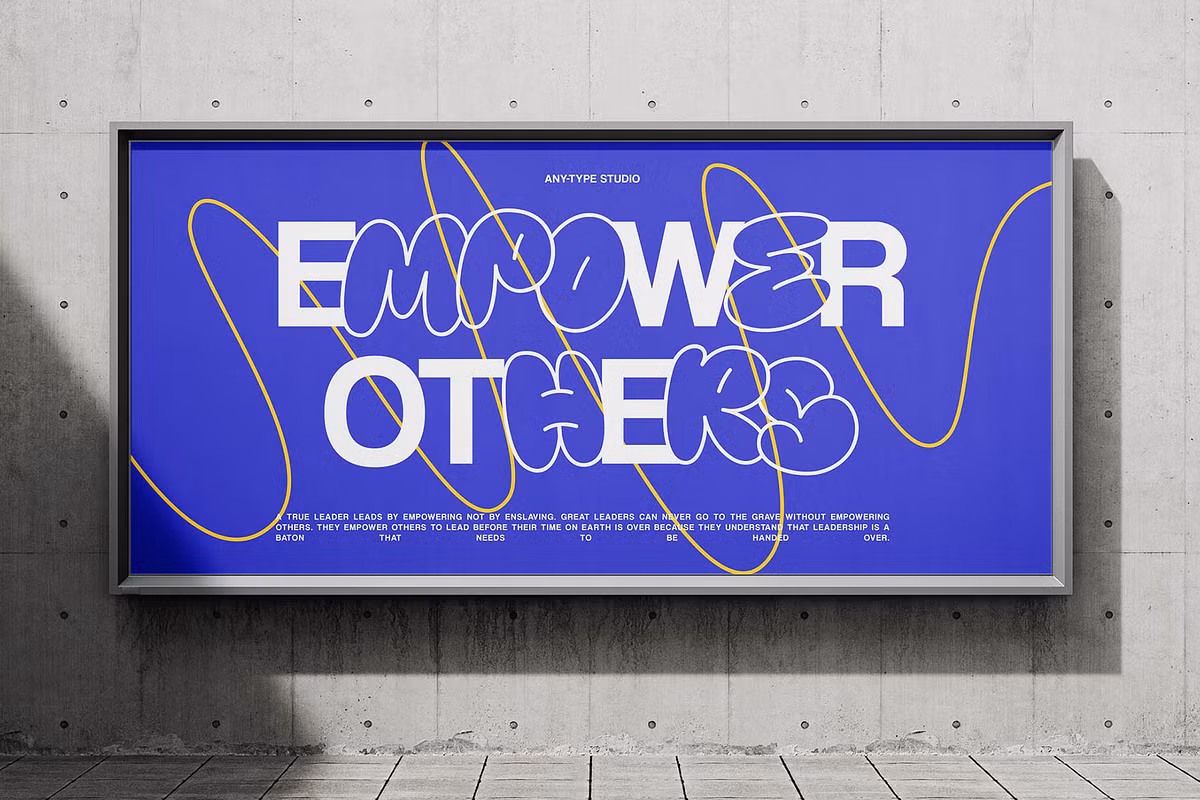
KNERD Bubble Font
KNERD Bubble Font: Casual Rounded Typeface with Graffiti Flair
Introduction to KNERD Bubble Font
KNERD Bubble Font has a really fun and playful look to it, with a bit of a graffiti feel. It’s a great choice for projects that need a casual, creative vibe. The rounded letters and unique cutoff shapes make it stand out from other fonts. You can use it to make posters, flyers, and branding materials that are eye-catching and fun. It adds a touch of personality to your designs, making them more approachable and engaging. Whether you’re going for a whimsical feel or just want to add some visual interest, KNERD Bubble Font is a good option. It’s perfect for designs that need a lighthearted, playful touch.
An example showcasing KNERD Bubble Font style.
Design Style of KNERD Bubble Font
The KNERD Bubble Font has a really fun and casual look to it, with soft, rounded shapes that make it feel friendly and approachable. It’s got a sweet, bubbly personality that’s hard to resist, and the little imperfections in the design just add to its charm. Even though it’s easy to read, it doesn’t feel too perfect or stiff, which makes it perfect for projects where you want to convey a more relaxed, creative vibe. Plus, you can see the influence of graffiti in the design, which gives it a cool, urban edge that works well for all sorts of artistic projects. Overall, the KNERD Bubble Font is a great choice when you want to add some personality and whimsy to your work.
KNERD Bubble Font is really nice to look at. It’s a great mix of casual and old-school styles. The letters are fun and bouncy, which can make you think of old times, but they still look new and modern. You can use it in different ways, like making a big statement with the filled style or going for a more subtle look with the outline style. This makes it really versatile and useful for lots of different things. The font’s playful feel can add a lot of personality to whatever you’re using it for, and the fact that you can choose between filled and outline styles gives you a lot of options for how you want your text to look. Overall, KNERD Bubble Font is a great choice if you want a font that’s both fun and stylish.
The KNERD Bubble Font is really versatile because it comes with both uppercase and lowercase letters, even though it’s mainly meant to be used in all caps. This means you can use it in lots of different ways, like for headings, titles, or even the main text, and it will still look great. You can pick and choose how you want to use it, which is pretty cool. It’s got a lot of flexibility, so you can use it for whatever you need, whether that’s making a big statement or just adding some personality to your writing.
A visual representation of KNERD Bubble Font features.
The font is really helpful because it works with many languages, so people from all around the world can use it. This is especially great for projects that want to connect with lots of different groups of people. It’s good for reaching people who speak different languages, and it makes the project more accessible to a global audience.
Use Cases for KNERD Bubble Font
The KNERD Bubble Font is really good for a lot of things. It can be used in many different ways, like for kids’ stuff, or for things that need to be fun and playful. Here are some examples of where it works really well:
• KNERD is great for making posters and flyers that really stand out. It’s bold and fun, which makes it perfect for getting people’s attention. This font is ideal for events, parties, or any kind of promotional campaign where you want to make a big impression. The casual style of KNERD is really eye-catching, so it’s a great choice if you want to make your posters and flyers memorable.
• Branding and Logo Design: If you are looking to create a brand identity that feels friendly and approachable, KNERD Bubble Font can be a key element in your logo design. Its unique style can help convey a sense of fun and creativity.
• Social Media Graphics: In today’s digital world, social media graphics are really important. If you want your posts to get noticed on busy sites like Instagram and Facebook, you need to make them look great. That’s where KNERD Bubble Font comes in – it’s a fun and playful font that can make your posts stand out from the crowd. Its design is perfect for social media, and it can help you grab people’s attention in a feed that’s full of other posts.
• Kids’ Books: Kids love books with fun fonts. The KNERD Bubble Font is great for children’s books because it’s easy to read and looks really friendly. It’s perfect for making reading fun and exciting for kids. The rounded letters make it a great choice for stories that need to be engaging and easy to understand.
So, what makes KNERD Bubble Font so special? It’s the way it brings together a casual, rounded look with a cool, urban graffiti vibe. This unique mix of styles makes it perfect for all sorts of projects, like posters, flyers, social media graphics, and branding. The font is easy to read, fun to look at, and really versatile. Whether you’re working on a design project, marketing campaign, or building a brand, KNERD Bubble Font can add a touch of creativity and playfulness that will grab people’s attention. It’s a great addition to any typography toolkit, and can help you stand out from the crowd. With its fun and creative aesthetic, KNERD Bubble Font is sure to make your projects more engaging and memorable.